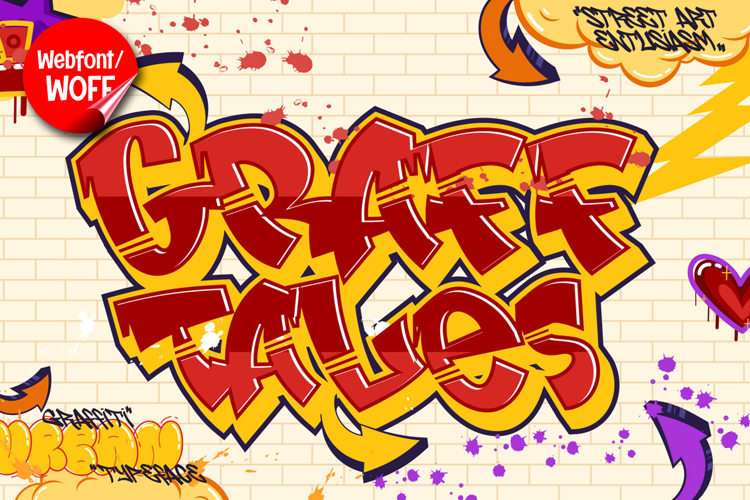
Graff Tales | Wild Break Graffiti Webfont for Urban Websites
Graff Tales is a wild break graffiti webfont designed to bring raw energy and explosive character into modern website design. Inspired by aggressive street lettering and freestyle graffiti styles, this font features broken shapes, irregular forms, and dynamic movement that create a bold and expressive visual impact. It is an excellent choice for projects that require a rebellious, edgy, and highly creative typographic identity.
Graff Tales includes a complete set of uppercase characters designed with wild and fragmented graffiti forms. The broken and distorted shapes give each letter a sense of movement and unpredictability, making the font ideal for headlines, banners, hero sections, and featured content where strong visual impact is essential. Its chaotic yet controlled design helps create a striking and memorable impression.
In addition to letters, the font includes numbers and punctuation, allowing flexible usage across various parts of a website. It works well for promotional text, event announcements, pricing displays, and navigation highlights. Each character maintains a consistent wild graffiti style, ensuring a cohesive and unified visual identity throughout the layout.
With multilingual support, Graff Tales includes a wide range of accented characters, making it suitable for international websites and global audiences. This allows content to be displayed clearly across different languages while preserving the expressive graffiti aesthetic.
The wild break graffiti style of Graff Tales makes it especially suitable for urban-themed websites, streetwear brands, music platforms, gaming interfaces, and creative portfolios. Its aggressive and unconventional design adds intensity and personality, helping websites stand out in competitive digital spaces. The broken structure also enhances a sense of motion and energy.
Despite its highly stylized and expressive appearance, Graff Tales is designed with readability in mind. The spacing and proportions are carefully balanced to ensure clarity, particularly in display sizes. This makes it effective for impactful headings and short content elements where both style and usability are important.
Graff Tales is a webfont that combines graffiti creativity with wild, broken aesthetics and modern digital performance. Its bold shapes, fragmented forms, and energetic style create a distinctive typographic presence that enhances website design. For projects that require a powerful, edgy, and visually striking graffiti font, Graff Tales delivers a strong and engaging solution.